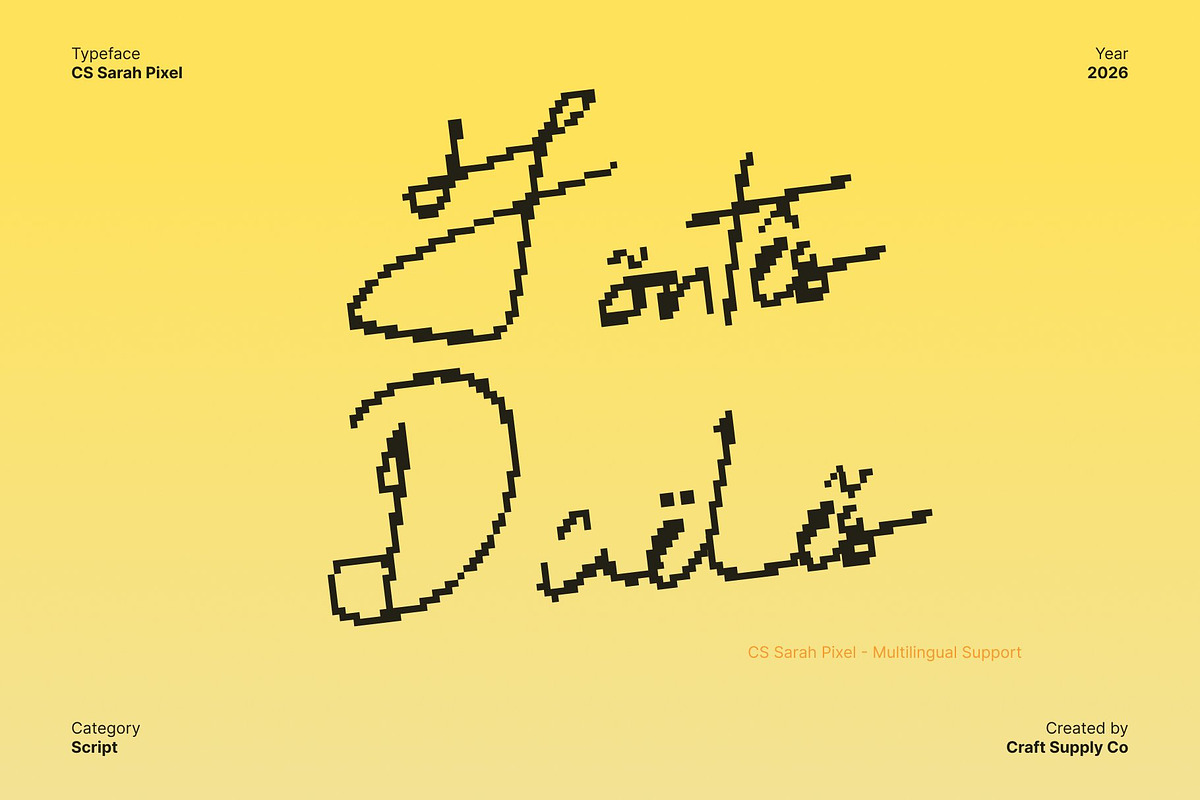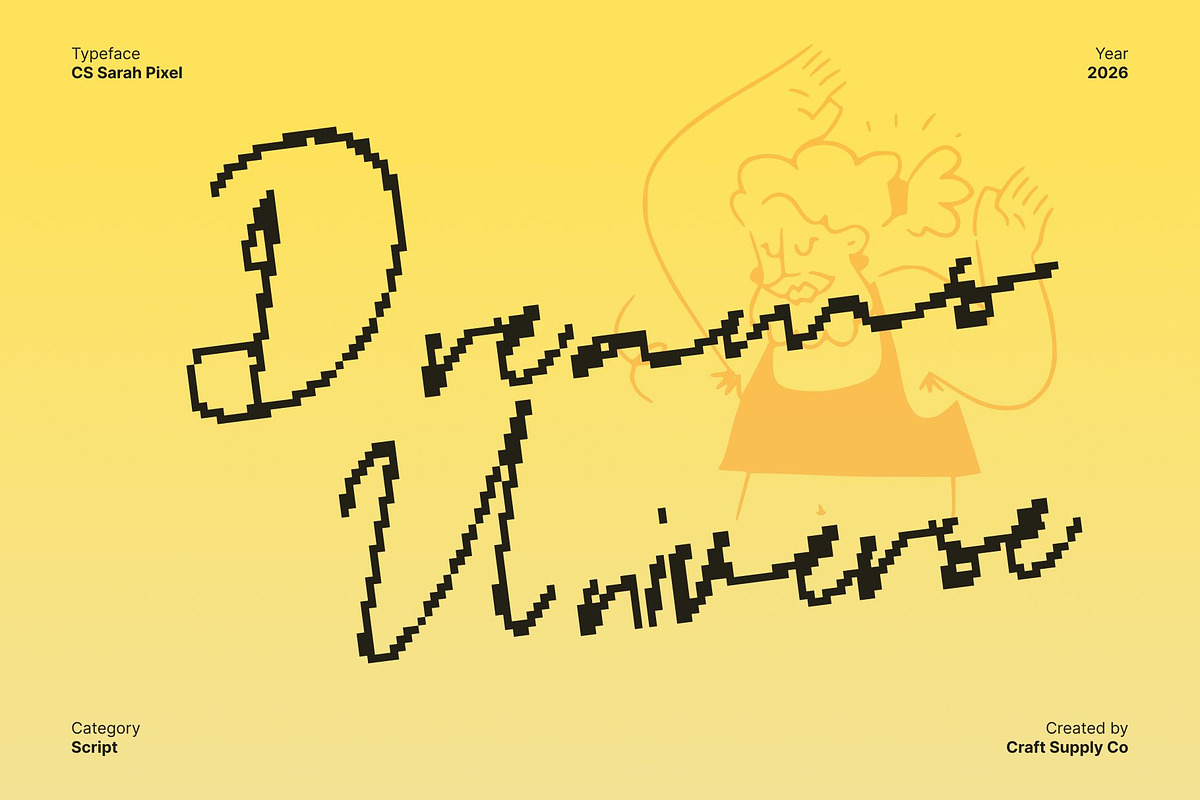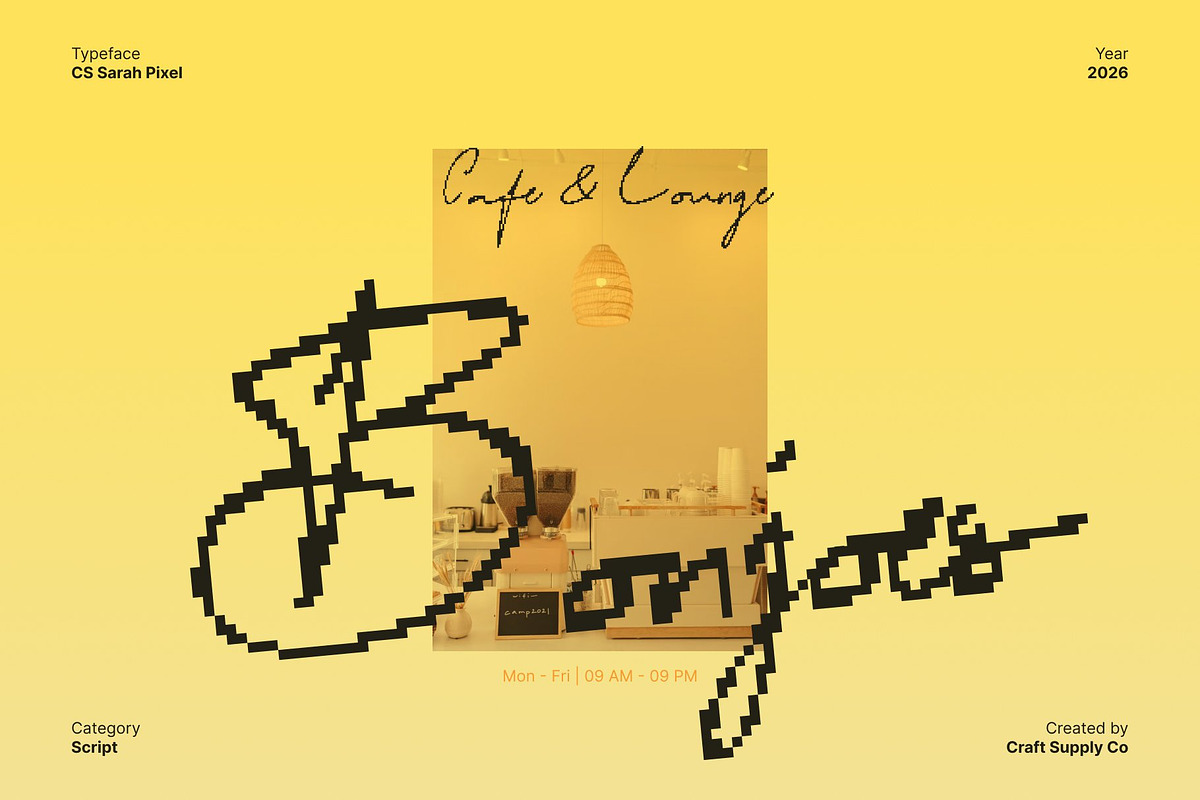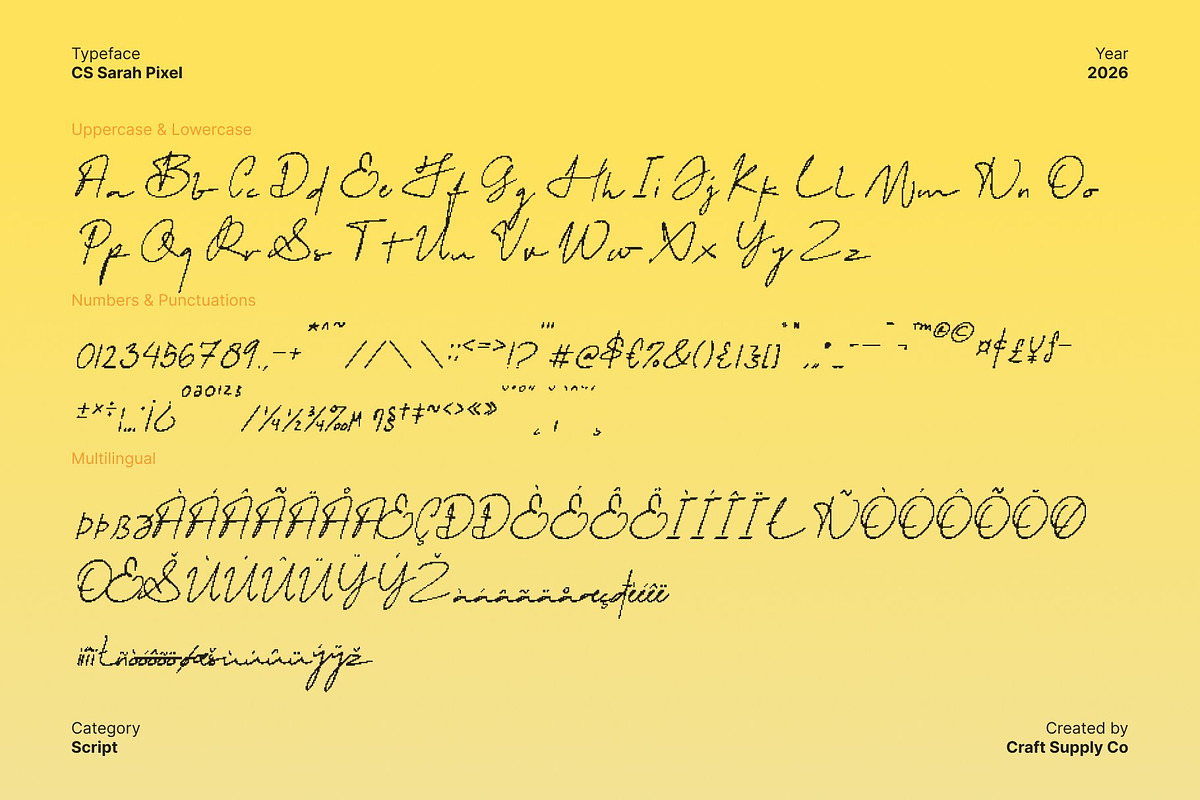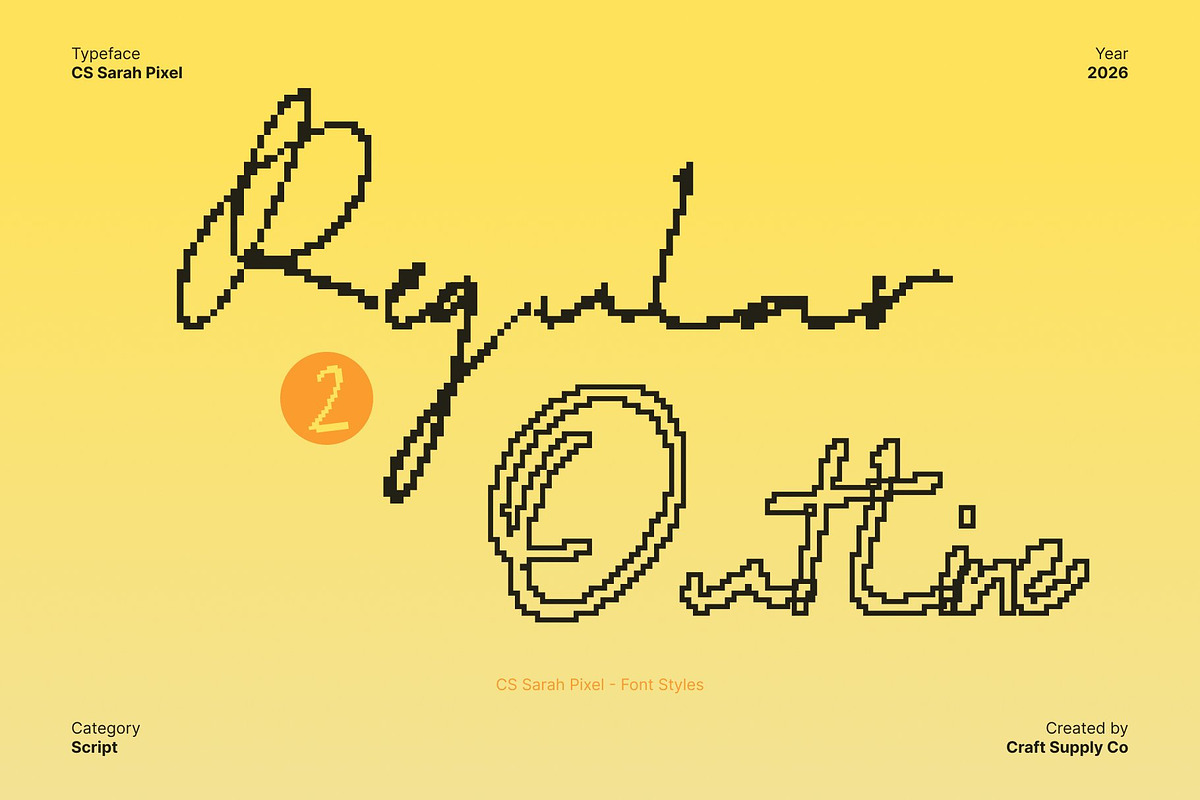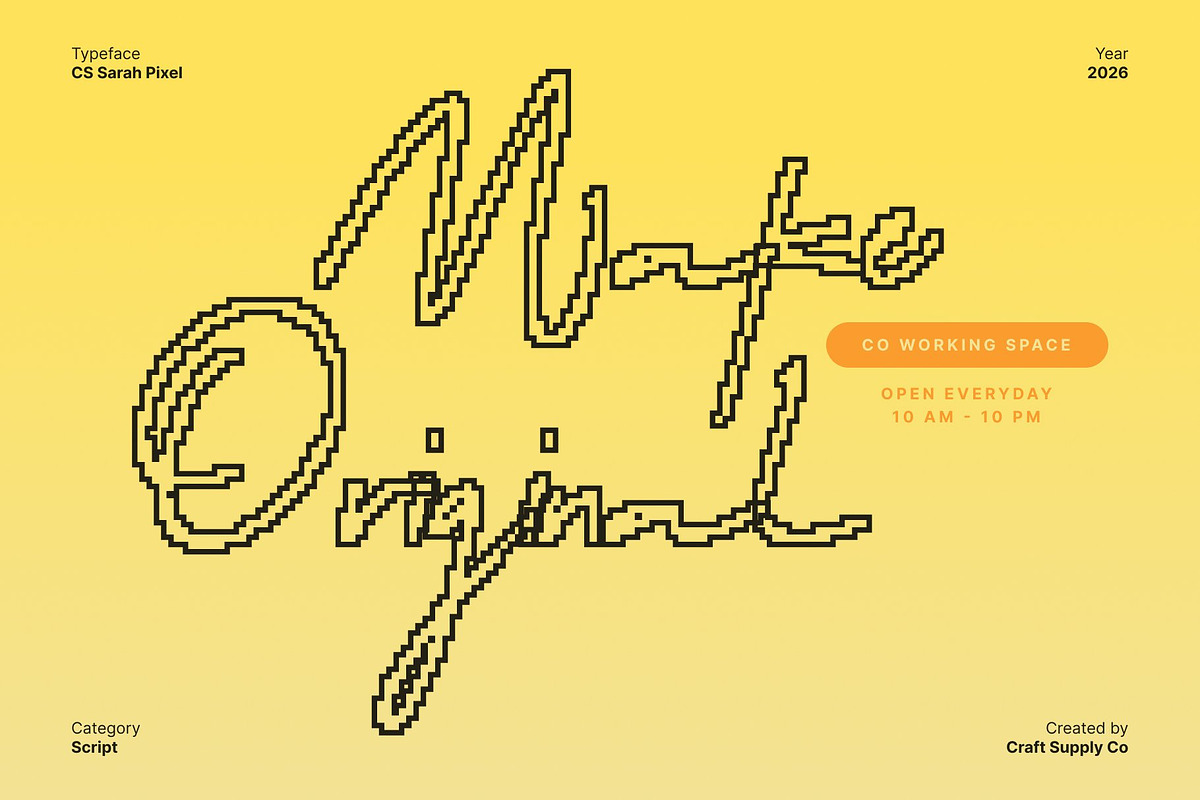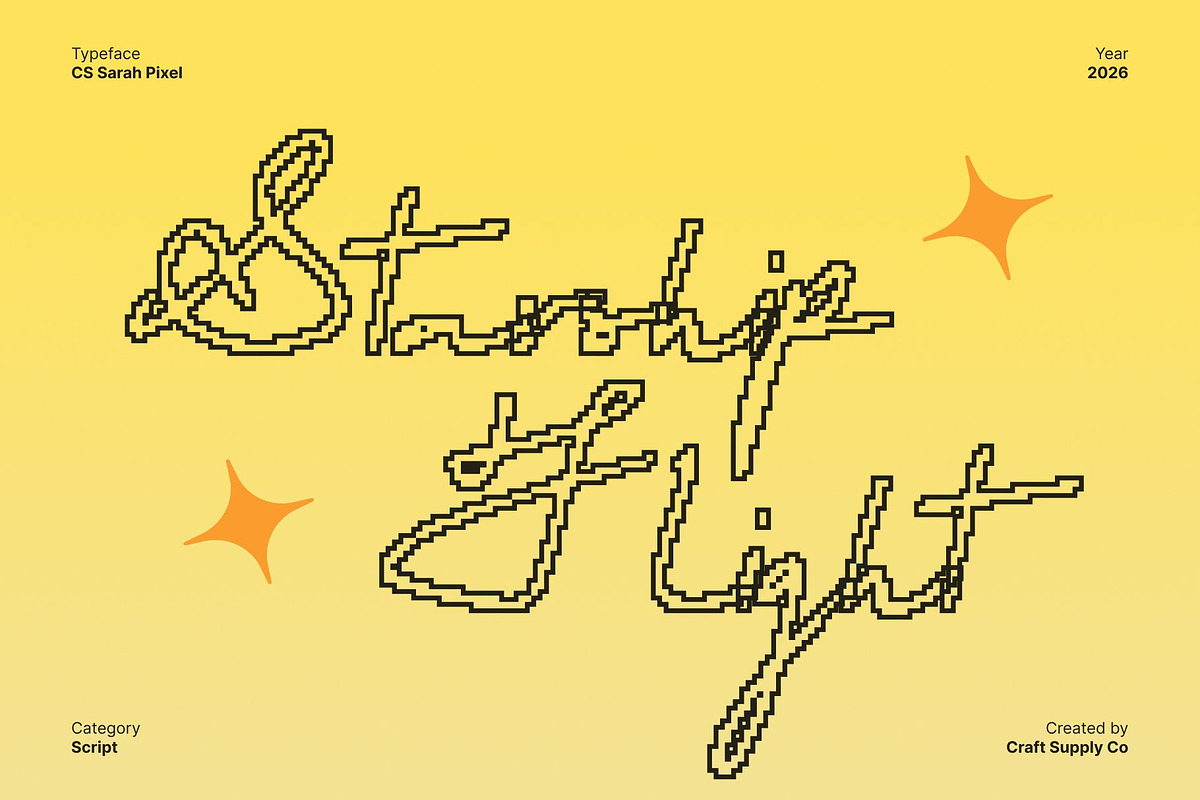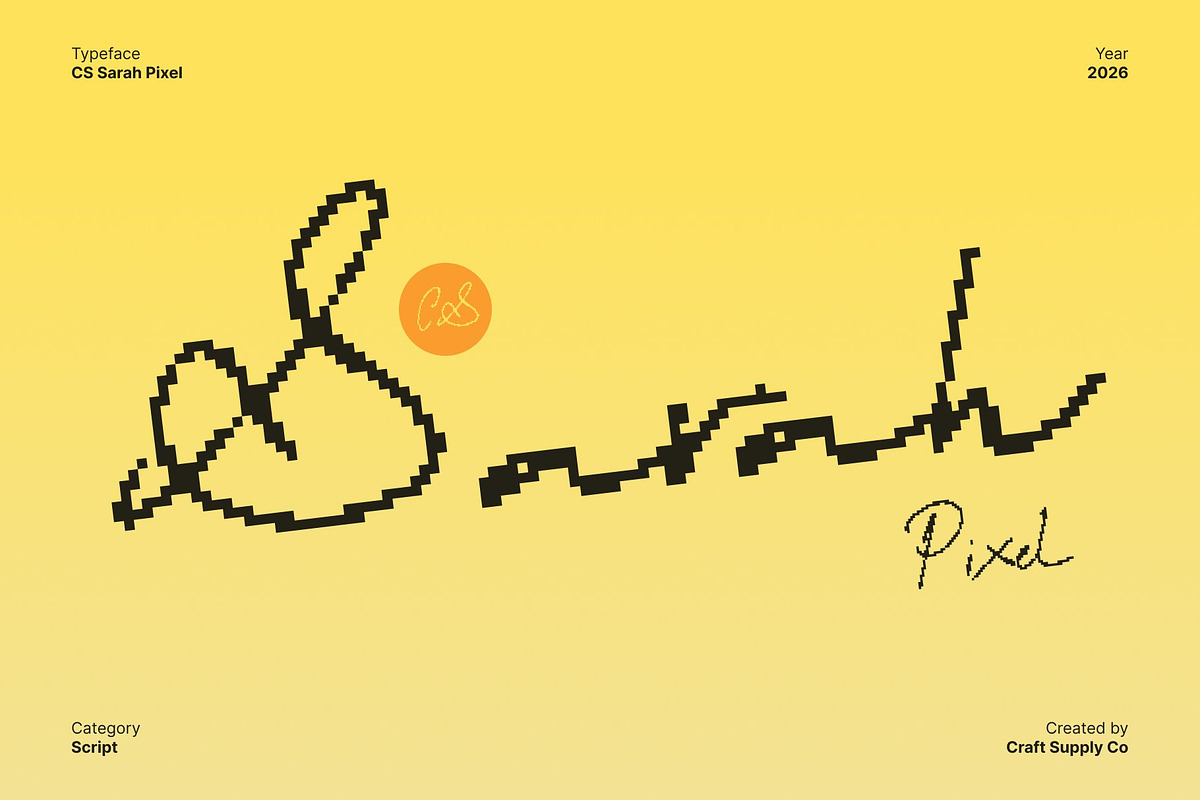
CS Sarah Pixel
CS Sarah Pixel – Graceful Handwritten Elegance with Refined Pixel Clarity
Handwritten Script Font with Polished Pixel Character This is a graceful handwritten script font designed to express refinement, softness, and timeless elegance reimagined through a clean pixel structure. Its smooth handwritten flow is carefully translated into pixel-based forms, creating a polished appearance that feels both sophisticated and digitally distinctive. The result is a script font that balances human warmth with modern pixel precision.
Elegant Flow with Pixel Precision and High Readability The letterforms maintain a natural handwritten rhythm while benefiting from the clarity of pixel construction. Gentle curves, consistent spacing, and refined proportions ensure excellent readability, even in digital environments. This thoughtful balance allows this font to feel elegant and expressive without losing sharpness or clarity on screens.
Refined Expression with Digital and Retro-Tech Appeal This delivers a luxurious yet approachable tone. The handwritten elegance adds warmth and personality, while the pixel style introduces a subtle retro-technology charm. This combination makes the font visually eye-catching and perfect for designs that want to feel refined, modern, and slightly nostalgic at the same time.
Ideal for Logos, Editorials, and Elegant Digital Branding Designed for premium and screen-based applications, this font ideal for logos, editorials, luxury packaging, branding, UI accents, and digital promotions. Its graceful script style paired with pixel clarity makes it especially suitable for fashion, beauty, lifestyle, and upscale digital brands. Whether used as a signature detail or a main typographic element, elevates designs with elegance, clarity, and timeless pixel charm.